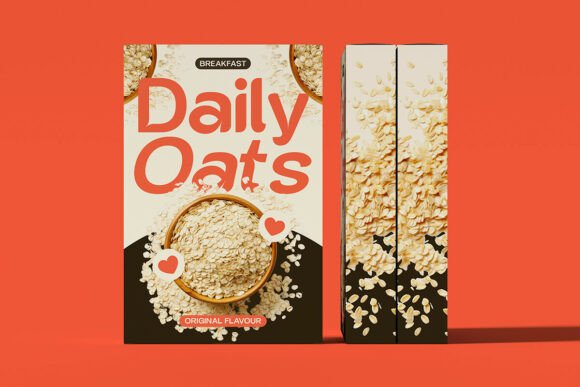
Golat Font: A Bold and Modern Typeface for Contemporary Design
In the world of typography, fonts play a crucial role in conveying messages, expressing emotions, and creating visual identities. Among the numerous fonts available, Golat Font stands out for its bold, forward-thinking design, making it an excellent choice for modern layouts, branding, display headlines, and digital interfaces. In this article, we’ll delve into the features, benefits, and applications of Golat Font, exploring why it’s an ideal choice for designers and businesses seeking a clean, contemporary look.
What is Golat Font?
Golat Font is a sans-serif typeface characterized by its sharp lines, geometric foundation, and bold appearance. Designed with clarity, strength, and a professional aesthetic in mind, Golat Font is perfect for creating a lasting impression in various design projects. Its clean and modern design makes it an excellent choice for headlines, titles, and short texts, where a strong visual impact is desired.
Key Features of Golat Font
- Geometric Foundation: Golat Font is built on a geometric foundation, which provides a sense of stability and balance to the design.
- Sharp Lines: The font’s sharp lines and edges create a clean, crisp appearance, making it perfect for digital interfaces and modern layouts.
- Bold and Forward-Thinking: Golat Font has a bold and forward-thinking design, making it ideal for headlines, titles, and short texts.
- Professional Aesthetic: The font’s professional aesthetic makes it suitable for branding, business communications, and corporate designs.
Benefits of Using Golat Font
Golat Font offers several benefits to designers and businesses, including:
- Improved Readability: The font’s clean design and sharp lines improve readability, making it easier for audiences to quickly grasp the message.
- Enhanced Visual Impact: Golat Font’s bold appearance creates a strong visual impact, drawing attention to the content and making it more engaging.
- Versatility: The font’s geometric foundation and professional aesthetic make it suitable for a wide range of design projects, from branding and advertising to digital interfaces and publishing.
- Consistency: Golat Font’s consistent design ensures that the brand’s visual identity remains cohesive across various platforms and mediums.
Applications of Golat Font
Golat Font’s versatility makes it suitable for various design projects, including:
- Branding: Golat Font is an excellent choice for branding, as it creates a strong visual identity and communicates a sense of professionalism.
- Display Headlines: The font’s bold appearance makes it perfect for display headlines, grabbing attention and drawing audiences to the content.
- Digital Interfaces: Golat Font’s clean design and sharp lines make it suitable for digital interfaces, such as websites, mobile apps, and software.
- Modern Layouts: The font’s geometric foundation and professional aesthetic make it an excellent choice for modern layouts, including magazines, newspapers, and books.
Why Choose Golat Font?
With numerous fonts available, why should designers and businesses choose Golat Font? Here are a few reasons:
- Uniqueness: Golat Font’s bold and forward-thinking design sets it apart from other fonts, making it a unique choice for designers and businesses.
- Legibility: The font’s clean design and sharp lines ensure excellent legibility, making it easy for audiences to read and understand the content.
- Flexibility: Golat Font’s versatility makes it suitable for various design projects, from branding and advertising to digital interfaces and publishing.
- Professionalism: The font’s professional aesthetic communicates a sense of expertise and authority, making it an excellent choice for businesses and organizations.
In conclusion, Golat Font is a bold and modern typeface designed for clean, contemporary impact. With its sharp lines, geometric foundation, and professional aesthetic, Golat Font delivers clarity, strength, and a lasting impression. Its versatility makes it suitable for various design projects, from branding and advertising to digital interfaces and publishing. Whether you’re a designer or a business owner, Golat Font is an excellent choice for creating a strong visual identity and communicating your message effectively.
FAQs About Golat Font
- What is Golat Font? Golat Font is a sans-serif typeface characterized by its sharp lines, geometric foundation, and bold appearance.
- What are the key features of Golat Font? Golat Font’s key features include its geometric foundation, sharp lines, bold and forward-thinking design, and professional aesthetic.
- What are the benefits of using Golat Font? The benefits of using Golat Font include improved readability, enhanced visual impact, versatility, and consistency.
- What are the applications of Golat Font? Golat Font is suitable for various design projects, including branding, display headlines, digital interfaces, and modern layouts.